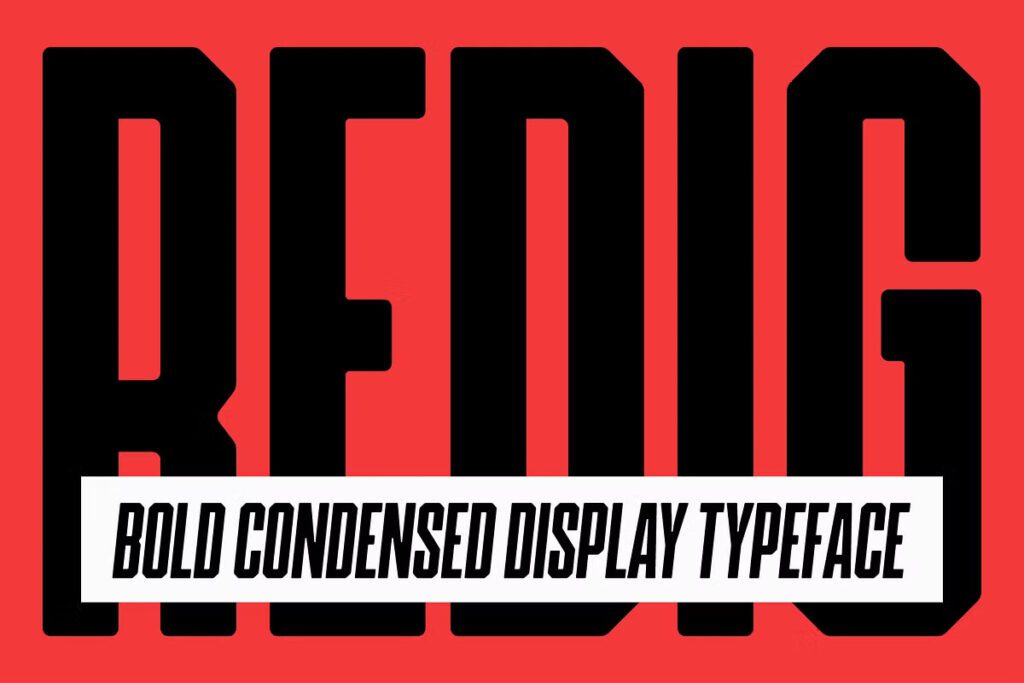
Redig – Condensed Bold Sans Typeface
Introducing Redig, a bold and condensed display typeface that exudes confidence and athleticism. Perfect for projects requiring a strong, assertive visual identity, Redig stands out with its chamfered corners and rounded edges that add a subtle softness to its bold design. The typeface is both modern and approachable, making it ideal for branding, posters, sports-related designs, and more.
Key Features of Redig:
Bold and Condensed DesignRedig’s condensed and bold structure ensures it grabs attention while keeping a clean and modern appearance.
Chamfered Corners with Rounded EdgesThis unique design element softens the boldness, adding a sleek and refined look to the typeface.
Generous x-HeightThe large x-height provides readability and versatility, making Redig suitable for both headlines and smaller text elements.
Multiple StylesAvailable in Redig Regular and Redig Oblique, giving you flexibility in your design choices.
Why Choose Redig?
Strong, bold design for impactful visuals
Condensed style saves space while maintaining legibility
Ideal for athletic, modern, and assertive design projects
Versatile enough for various applications, from branding to editorial designs
Redig is perfect for designers looking for a font that combines power and precision. Its condensed bold style with softened edges makes it suitable for high-impact designs that need to be both assertive and approachable.